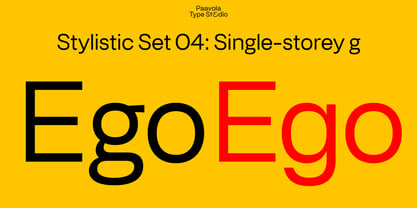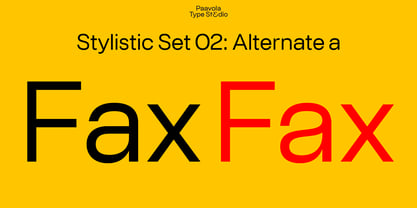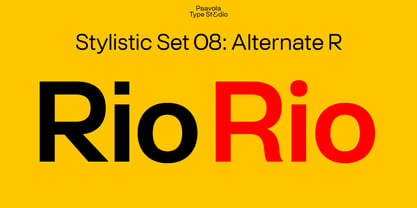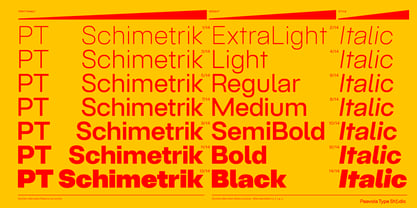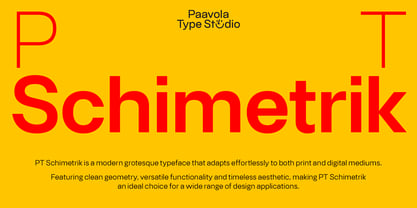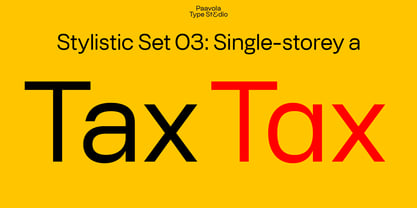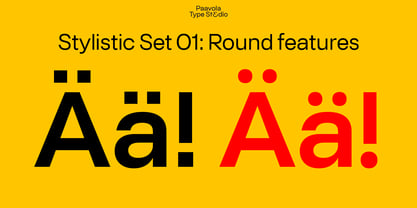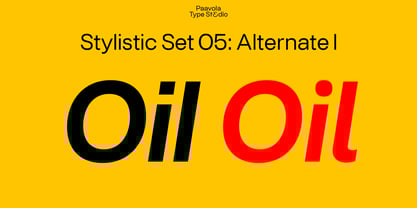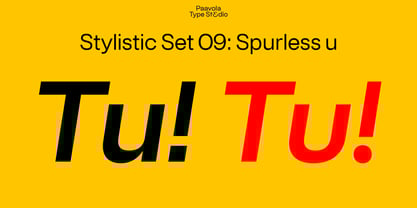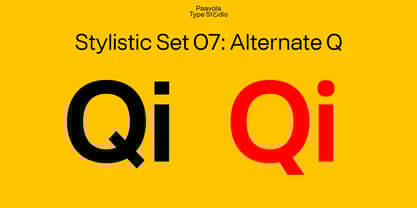
PT Schimetrik
The PT Schimetrik Font Family was designed by Jani Paavola and published by Paavola Type Studio. PT Schimetrik contains 14 styles and family package options. More about this family
PT Schimetrik is a modern grotesque typeface that adapts effortlessly to both print and digital mediums. It stands out with its clean geometry, versatile functionality, and timeless aesthetic, making it an ideal choice for a wide range of design applications.
PT Schimetrik features stylistic sets to access alternates:
• Stylistic set 01: Round features
• Stylistic set 02: Alternate a
• Stylistic set 03: Single-storey a
• Stylistic set 04: Single-storey g
• Stylistic set 05: Alternate l
• Stylistic set 06: Alternate t
• Stylistic set 07: Alternate Q
• Stylistic set 08: Alternate R
• Stylistic set 09: Spurless u
• Stylistic set 10: Alternate figures
Other features of PT Schimetrik include standard ligatures, precomposed fractions, variety of arrows, slashed zero and substitutions.
PT Schimetrik supports over 200 latin based languages.